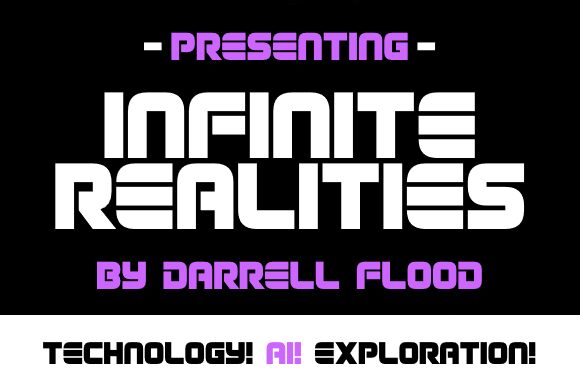
Infinite Realities Italic
With its sleek and captivating design, Infinite Realities Italic is a display font that embodies the essence of futuristic aesthetics. Created by the talented designer Hawtpixel, this extra-bold and expanded typeface adds an air of sophistication to any project.
Its unique style makes it ideal for branding campaigns seeking to convey innovation and cutting-edge concepts. Whether used in technology websites, video game titles, or sci-fi book covers, Infinite Realities Italic will transport your audience into a realm of infinite possibilities.
Let your imagination soar with this truly captivating typeface.